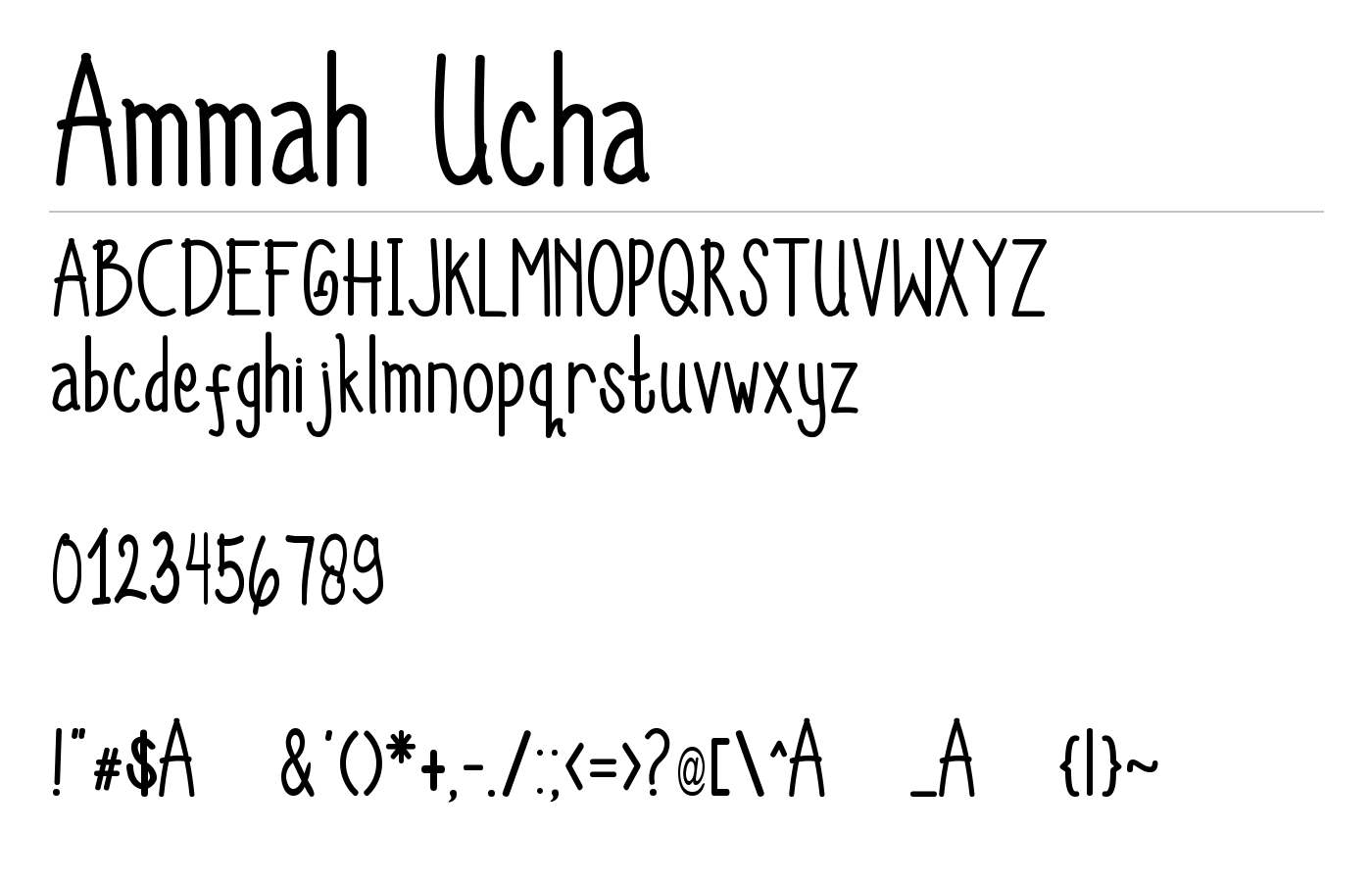
Ammah Ucha is a quirky and playful sans serif font featuring tall, narrow letterforms with a hand-drawn feel. Its light weight and uneven stroke widths give it a casual, approachable style perfect for creative projects, children’s content, and informal branding. This font works well in headings and designs that benefit from a friendly, whimsical touch.
Ammah Ucha Font
About Ammah Ucha Font